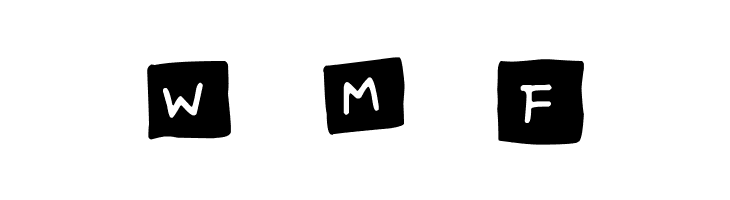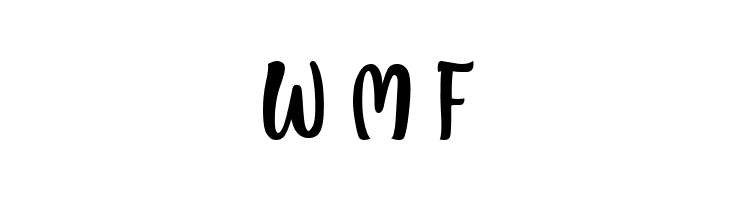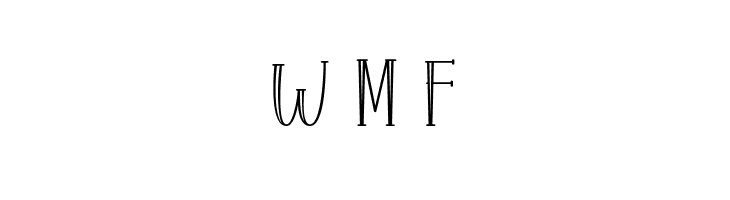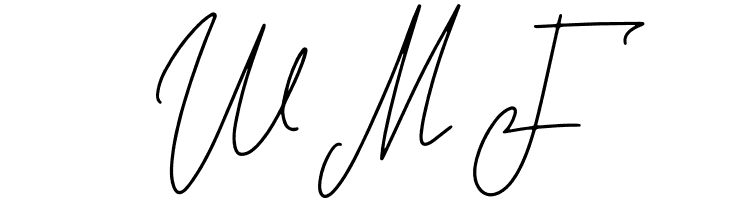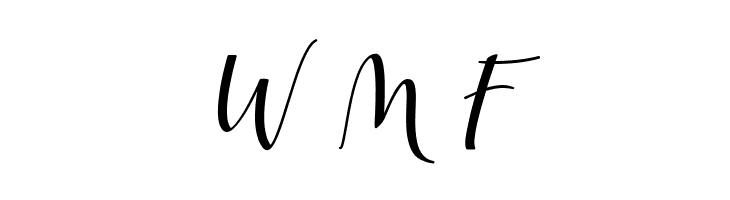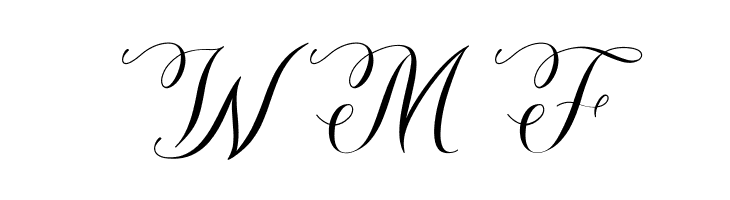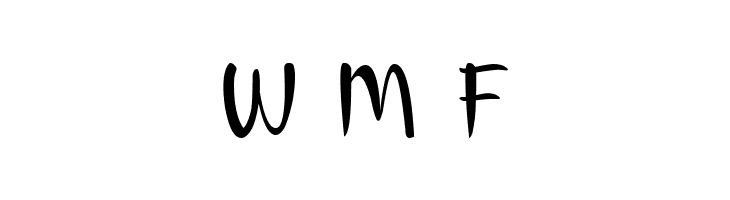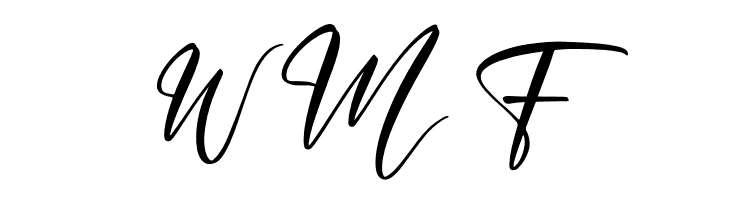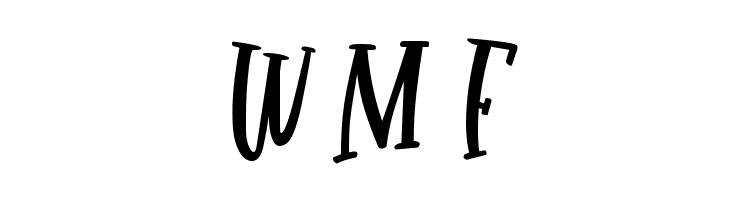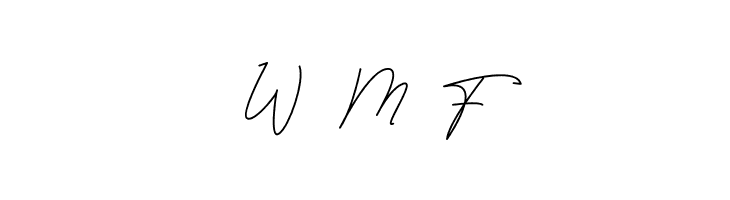
A bold, expressive brush script font with dynamic strokes and artistic flair.
A playful, bold font with rounded, bubbly characters.
A whimsical and decorative font with elongated, narrow letterforms and playful curls.
An elegant, flowing script font with graceful loops and a handwritten feel.
An elegant, flowing script font with graceful, cursive letterforms.
A bold, expressive handwritten font with a lively and dynamic style.
A playful and whimsical handwritten font with fluid, flowing letterforms.
A graceful and elegant script font with flowing, delicate strokes.
An elegant, flowing script font with intricate, cursive strokes.
A charming and elegant handwritten script font with fluid, connected letterforms.
Casual handwritten font with a playful style.
An elegant cursive script font with intricate swirls and loops.
A delicate, flowing script font with elegant, elongated letterforms.
A bold, playful font with thick, rounded characters and a retro, groovy style.
A playful, heart-themed font with bold, chunky letters and whimsical charm.
An elegant, flowing script font with intricate loops and flourishes.
An elegant and flowing script font with intricate swirls and loops.
A playful, hand-drawn font with flowing, cursive-like strokes.
A charming and elegant script font with flowing, cursive letterforms.
A decorative font with intricate patterns and bold, artistic characters.
A decorative font with a playful dotted pattern, perfect for creative projects.
A playful, bold, and hand-drawn style font with rounded characters.
A playful, hand-drawn font with bold, rounded characters and a whimsical style.
A pictorial decorative font featuring stylized female portraits.
An elegant, cursive handwritten font with a romantic and sophisticated style.
A charming and elegant script font with flowing, interconnected letterforms.
A playful, hand-drawn font with bold, rounded characters and a whimsical style.
A fluid and elegant script font with dynamic, flowing letterforms.
An elegant, flowing cursive font with a sophisticated italic style.
A playful and elegant script font with decorative uppercase and smooth lowercase letters.
A playful, handwritten font with tall, narrow letters and a modern feel.
A modern, elegant script font with flowing cursive letters and sophisticated flourishes.
A playful, hand-drawn font with characters on individual tiles, perfect for creative projects.